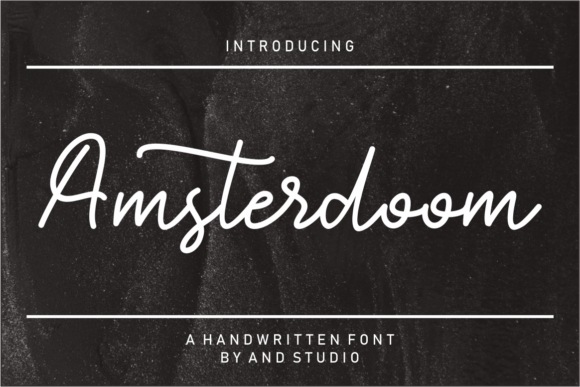
The Amsterdoom Font: A Delicate and Elegant Companion for Your Design Journey
I’ll never forget the time I was working on a branding project for a luxury skincare client. I had spent hours pouring over design concepts, but something was missing – the perfect font. That’s when I stumbled upon Amsterdoom, a delicate and elegant handwritten font that instantly elevated my design game. In this article, I’ll share my love for Amsterdoom, its incredible versatility, and provide a comprehensive guide on how to make the most of this beautiful font.
An Honest Review of Amsterdoom
What I Love About Amsterdoom ✨
- 💫 Incredibly versatile style suitable for a wide range of design projects
- ✅ Perfect for logos, branding, titles, social media posts, advertisements, and more
- 🎉 PUA encoded for easy access to amazing glyphs and ligatures
- 👍 Delicate and elegant handwritten style that adds a touch of sophistication
While Amsterdoom is an exceptional font, there are a few minor quirks to be aware of:
- 🤔 Some users may find the font requires a bit of kerning adjustment for optimal results
- ⚠️ Limited availability of bold or heavy weights, which may not be ideal for certain designs
The Designer Inspiration Behind Amsterdoom
While the true story behind Amsterdoom’s creation may be unknown, it’s easy to imagine that the designer was inspired by the charming streets of Amsterdam. Perhaps they fell in love with the city’s elegant architecture, quaint canals, and rich cultural heritage. Whatever the inspiration, Amsterdoom is a testament to the power of beautiful typography in design.
| Is Amsterdoom suitable for body text? | While Amsterdoom is an elegant font, it’s best suited for headlines, titles, and short paragraphs. For longer body text, a more traditional font may be more suitable. |
In conclusion, Amsterdoom is an exceptional font that deserves a spot in every designer’s toolkit. Its delicate and elegant style, combined with its versatility and OpenType features, make it perfect for a wide range of design projects. Whether you’re a seasoned designer or a creative hobbyist, Amsterdoom is sure to become your new favorite font.